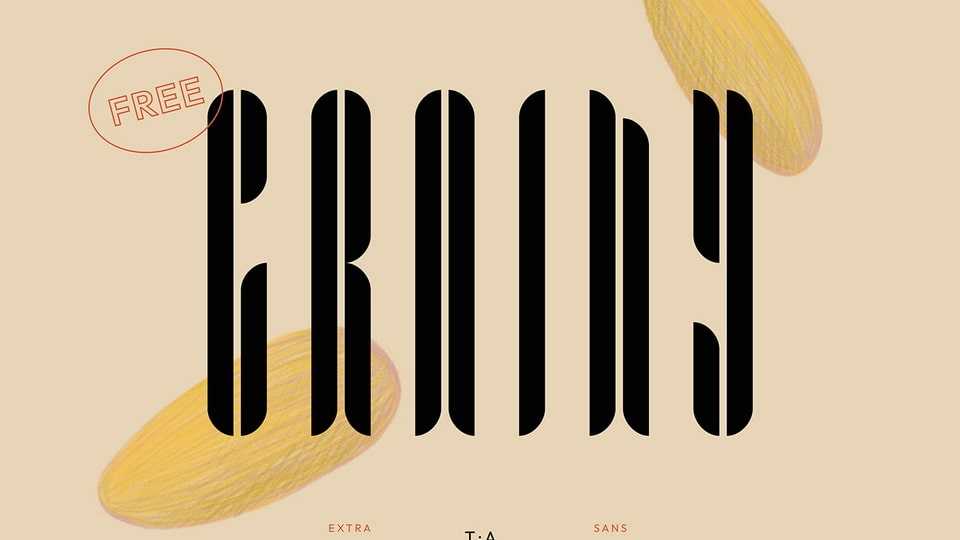
Download Grainy font, a condensed and stencil sans serif typeface that is modular yet playful. The stencil cutouts introduce an element of playfulness, adding an unexpected twist to the modular structure.